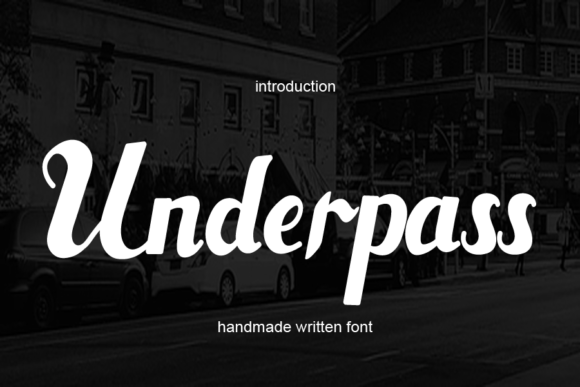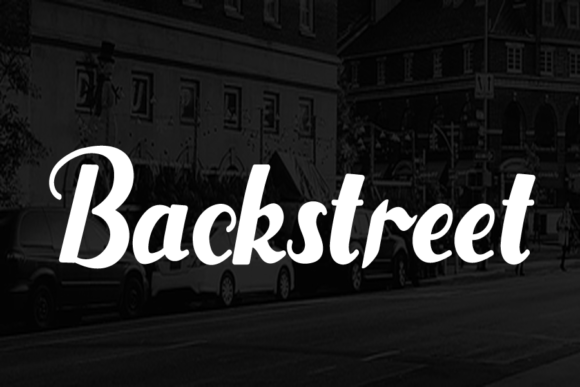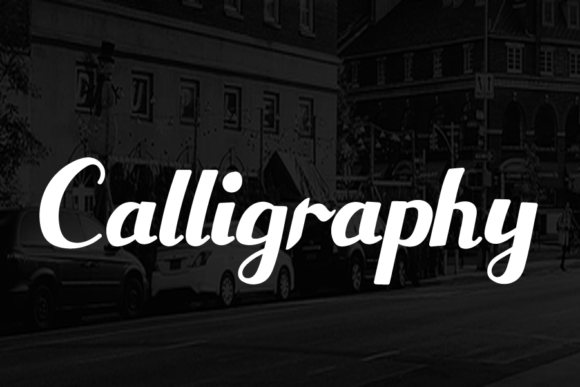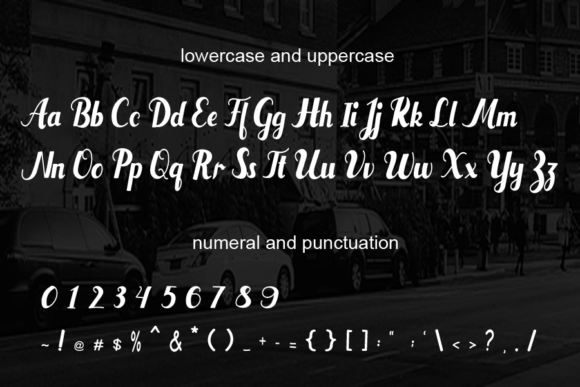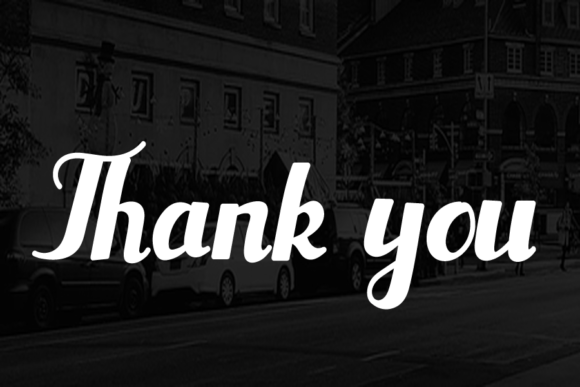
Underpass Font
About Underpass Font
Underpass is a modern and classy handwritten font. It has a charming slim body and sophisticated characters that can elevate the look of any creative project!